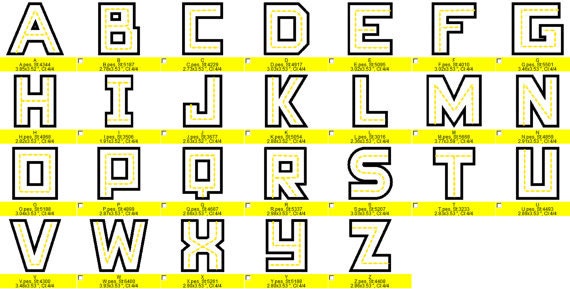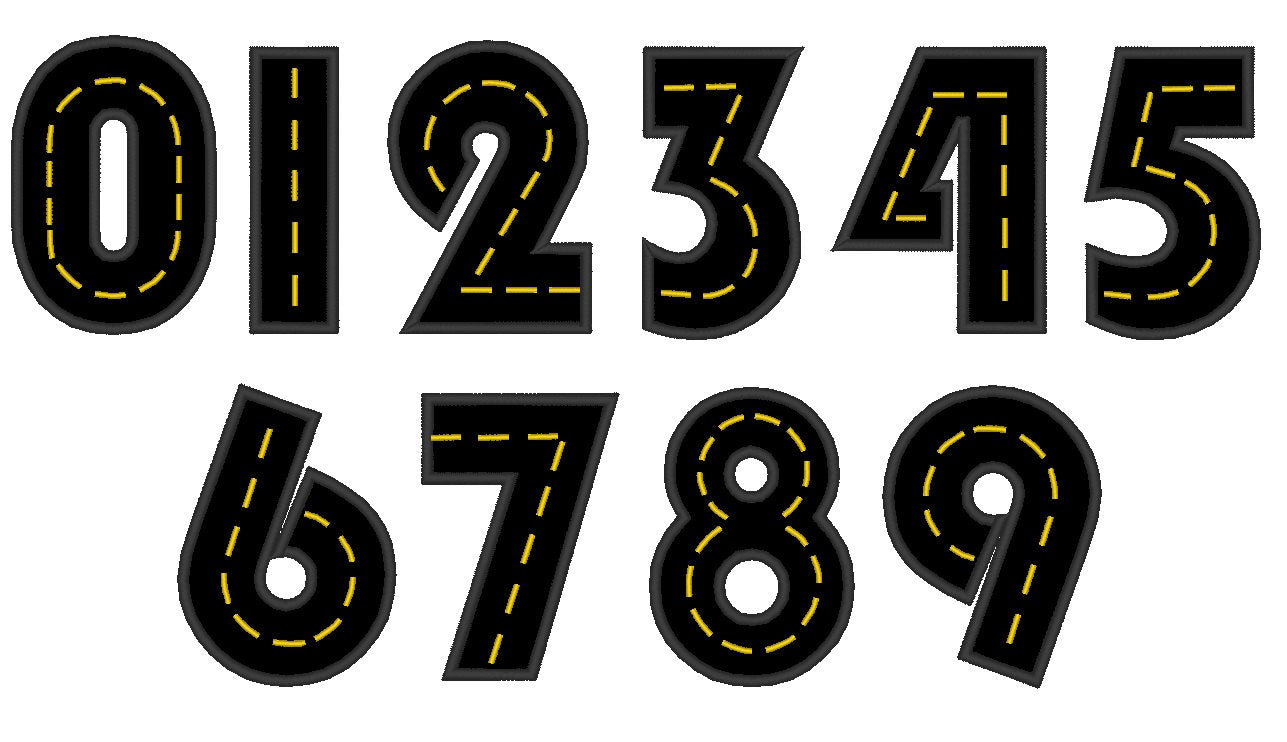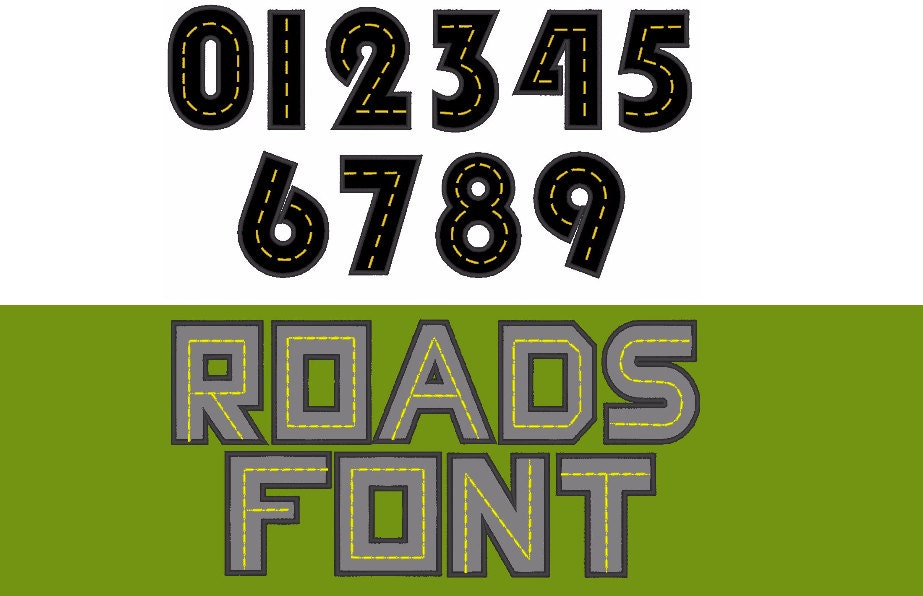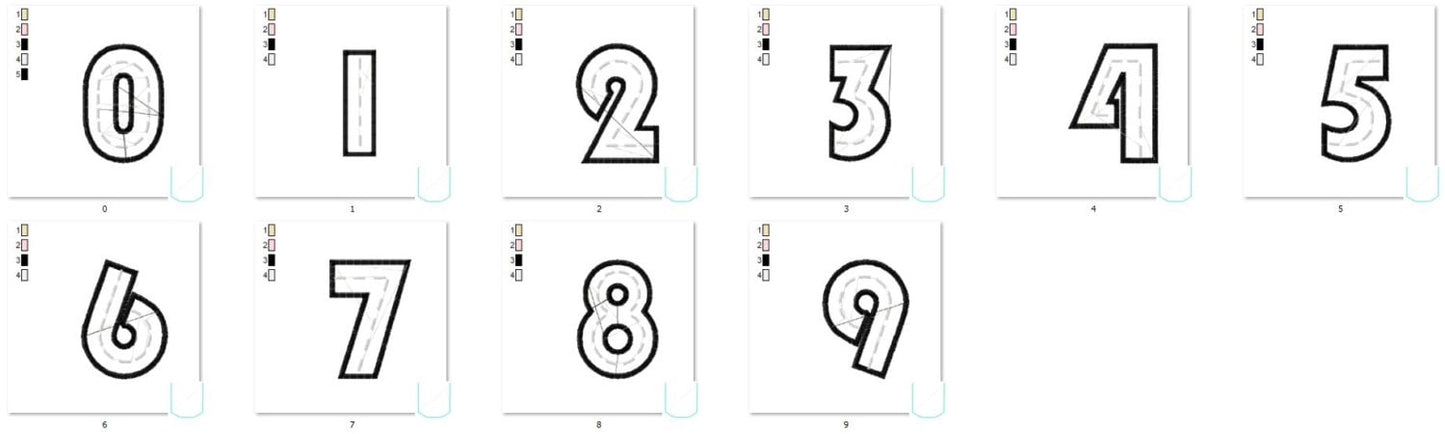
Or click to open the linkA road font with a wide satin applique edge, for boys' names and numbers on car and truck themed shirts, pillows and blankets.
Letters A to Z come in 2, 3, 4, 5 and 6 inches; numbers 0 to 9 in 3, 4, 5 and 6 inches.